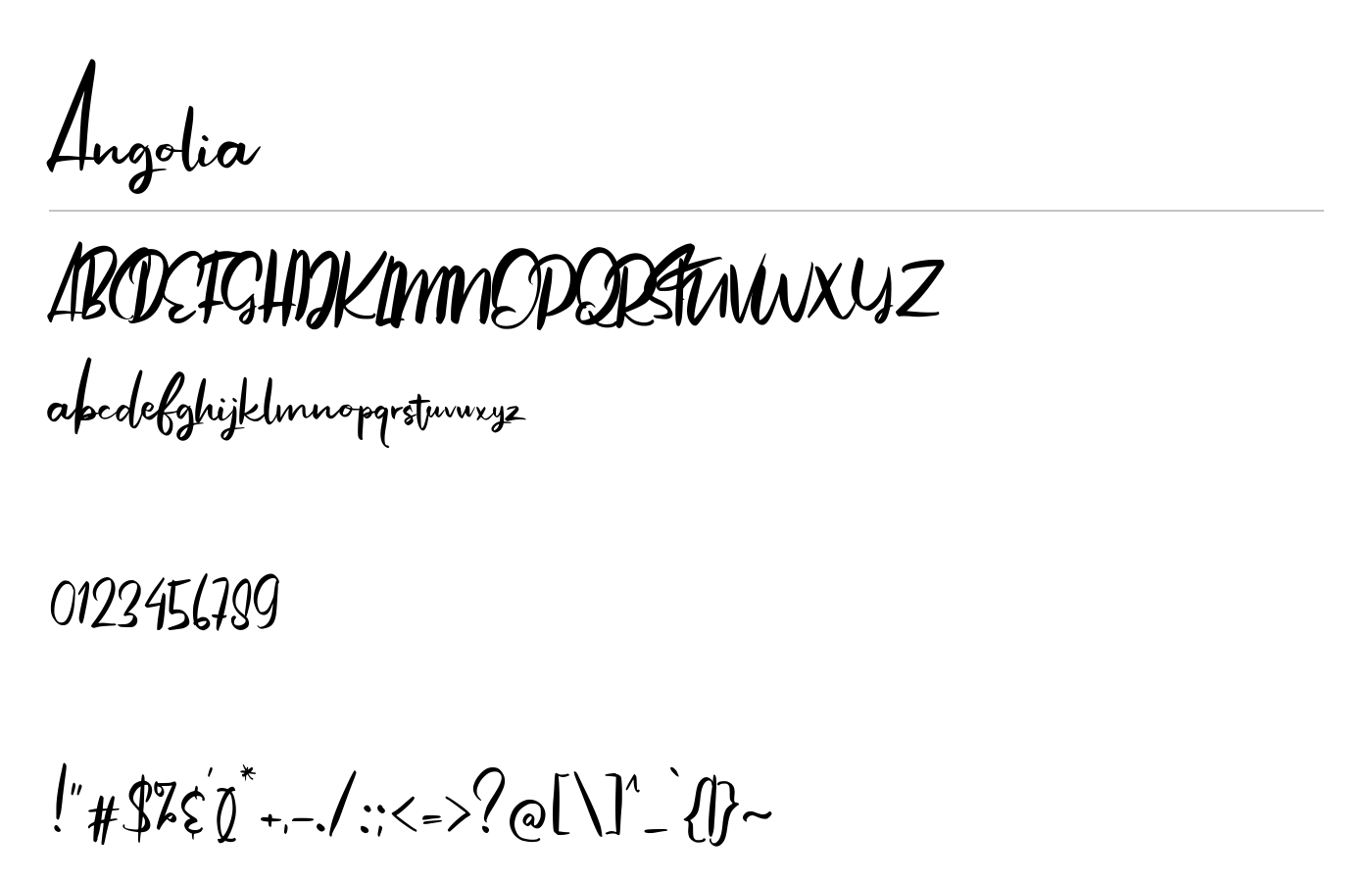
Angolia is a playful and casual script font with a natural, hand-drawn feel. Featuring a lively mix of tall, slender letters and flowing curves, it brings a personal and friendly touch, making it ideal for creative branding, invitations, and informal headlines. Its distinctive style works well when you want to convey warmth and approachability without sacrificing personality.
Angolia Font